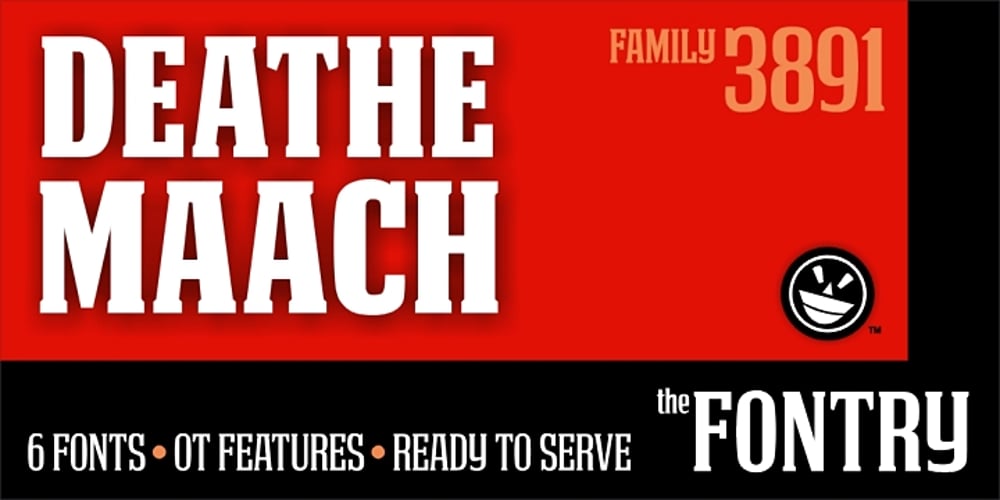
DEATHE MAACH Font Family was designed by Michael Gene Adkins and published by The Fontry. DEATHE MAACH contains 6 styles and family package options. There’s a war starting; you just didn’t notice because you were too busy fighting to realize what was happening. Take your sides. Pick your battles. Choose a face that stands ready to defend, enforce and police. All who are ready to serve, please step forward. Deathe Maach is a six-font family of descending weights with the strength and stamina to face all comers in the approaching conflict. Armor on. Pistols out. Barrels forward. Enforce and serve.